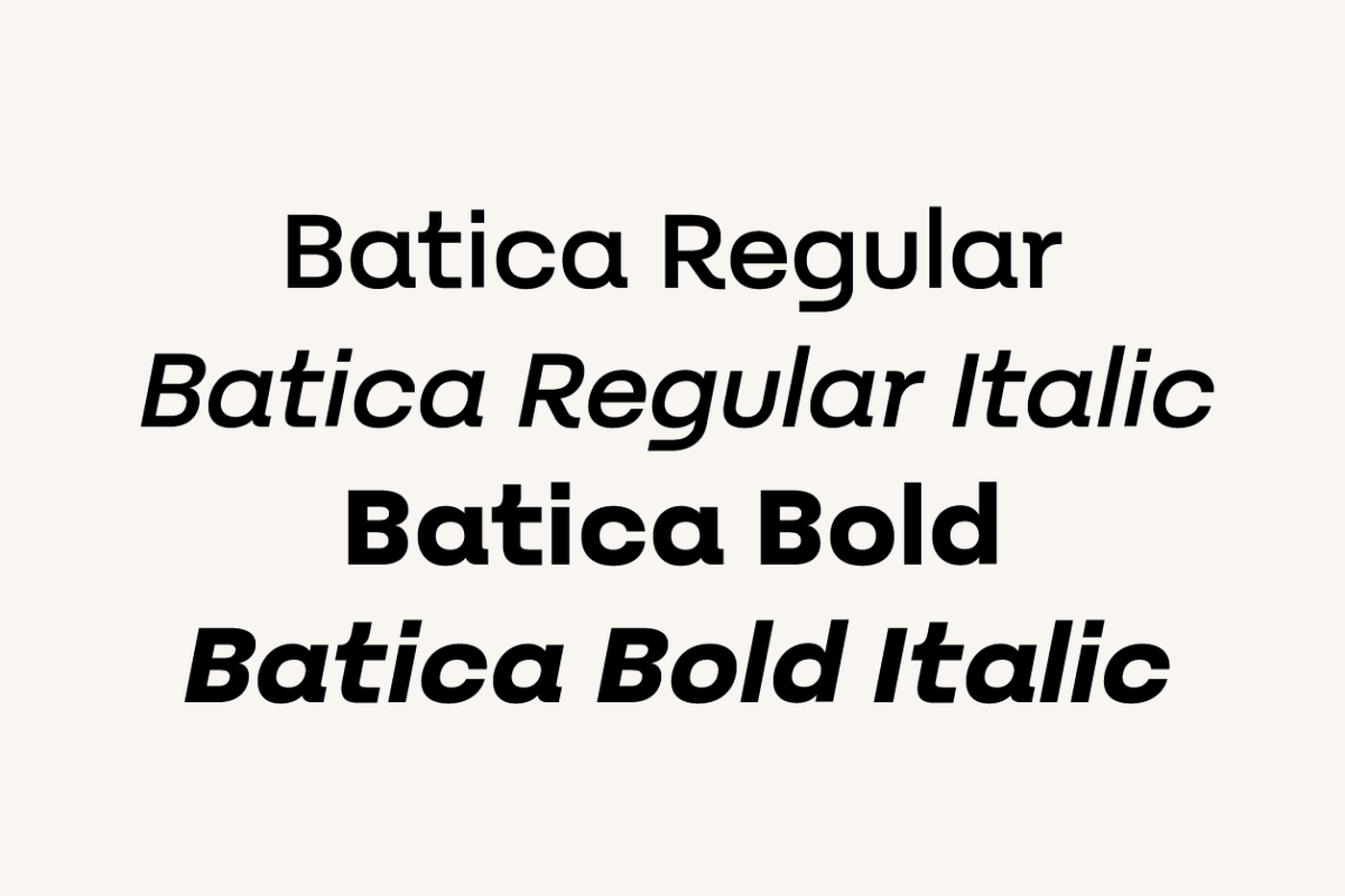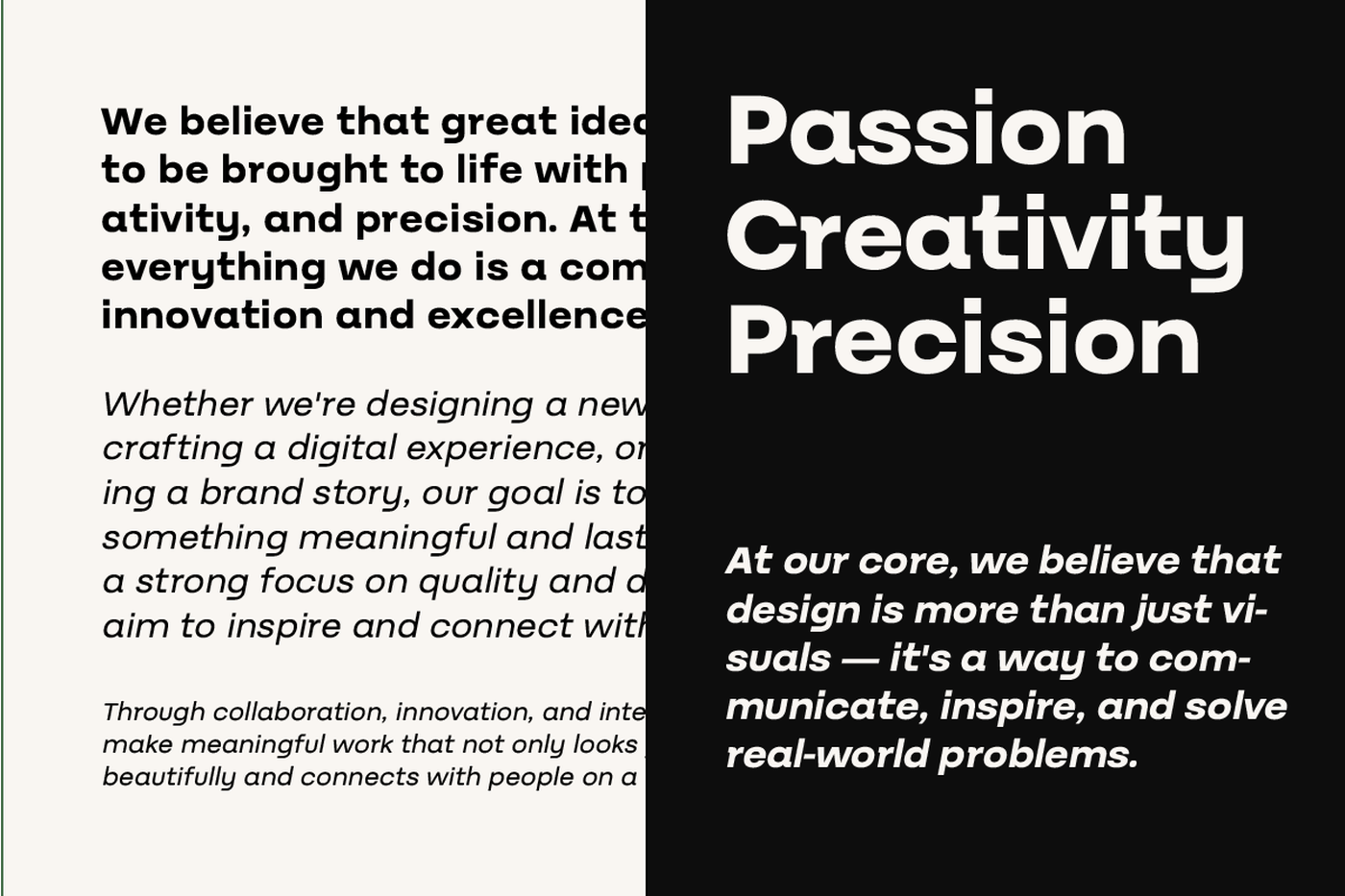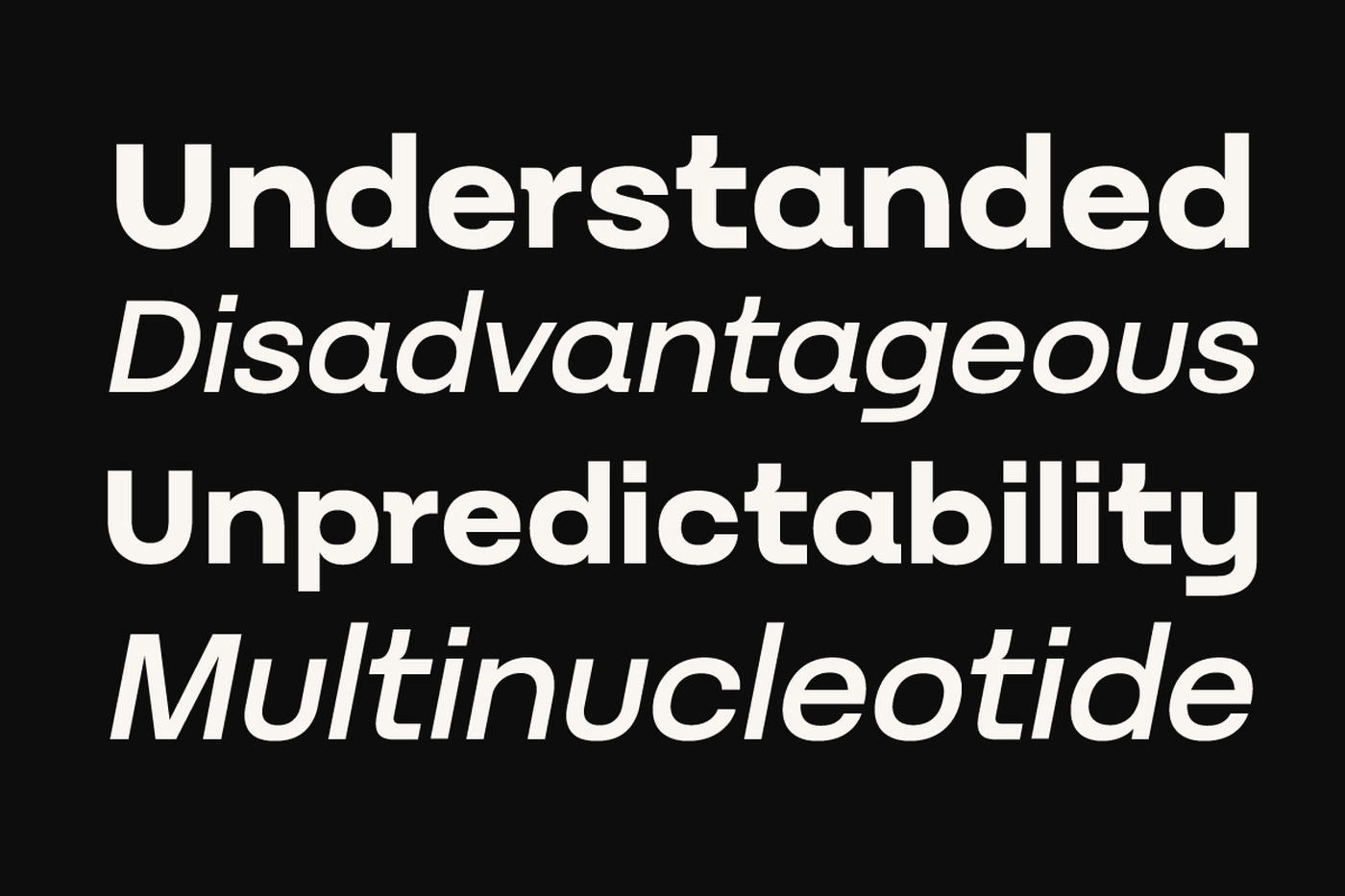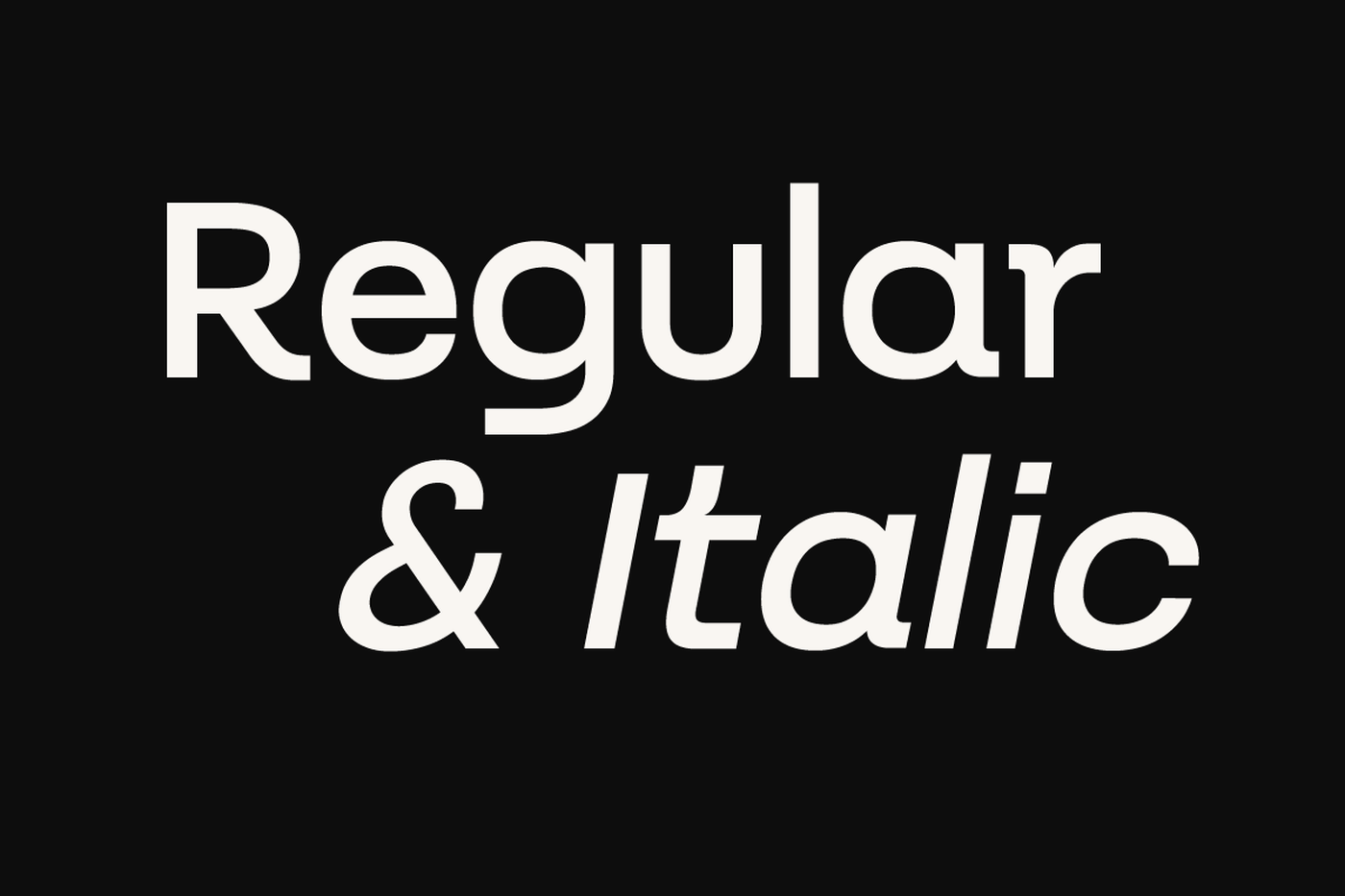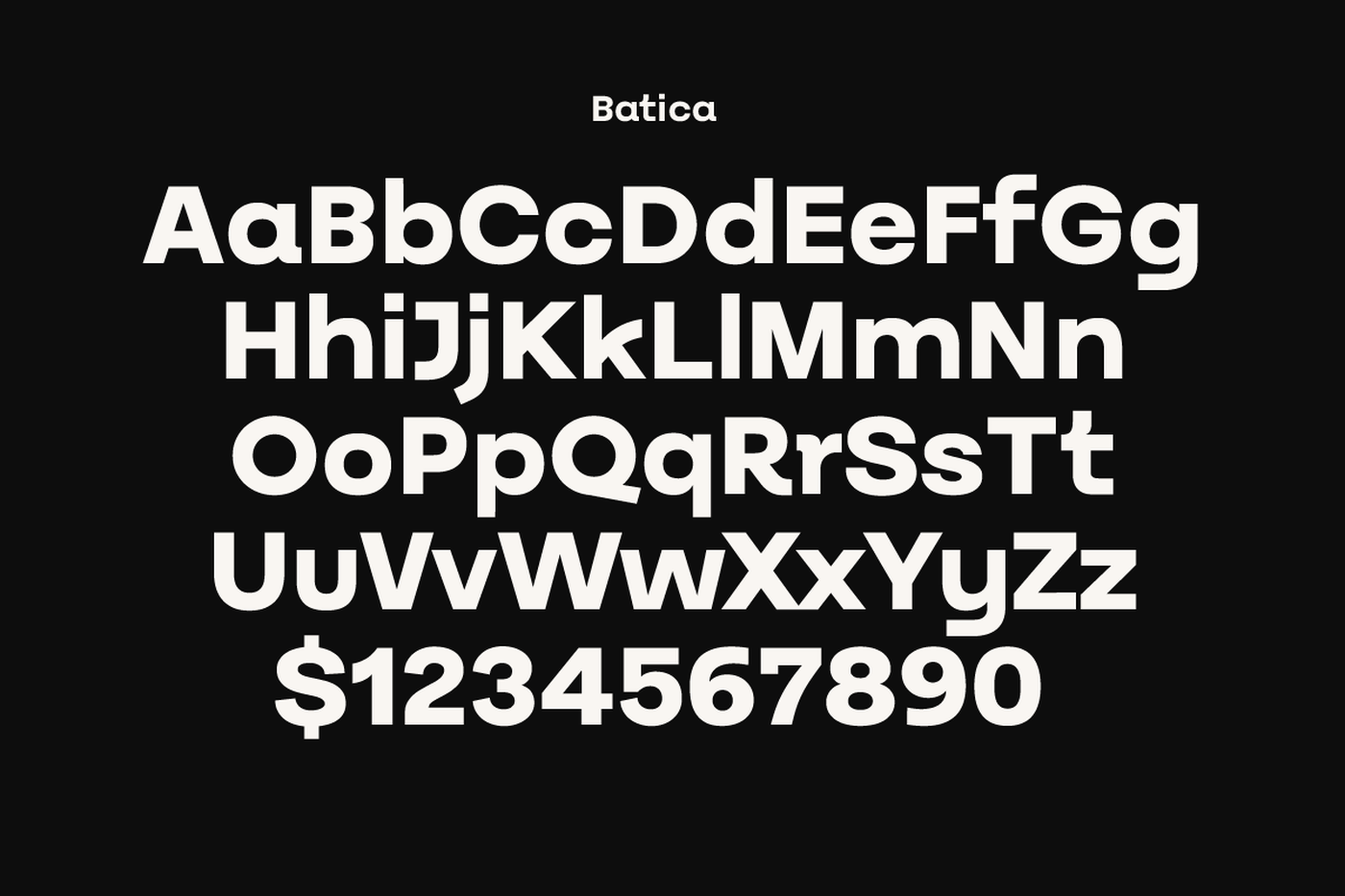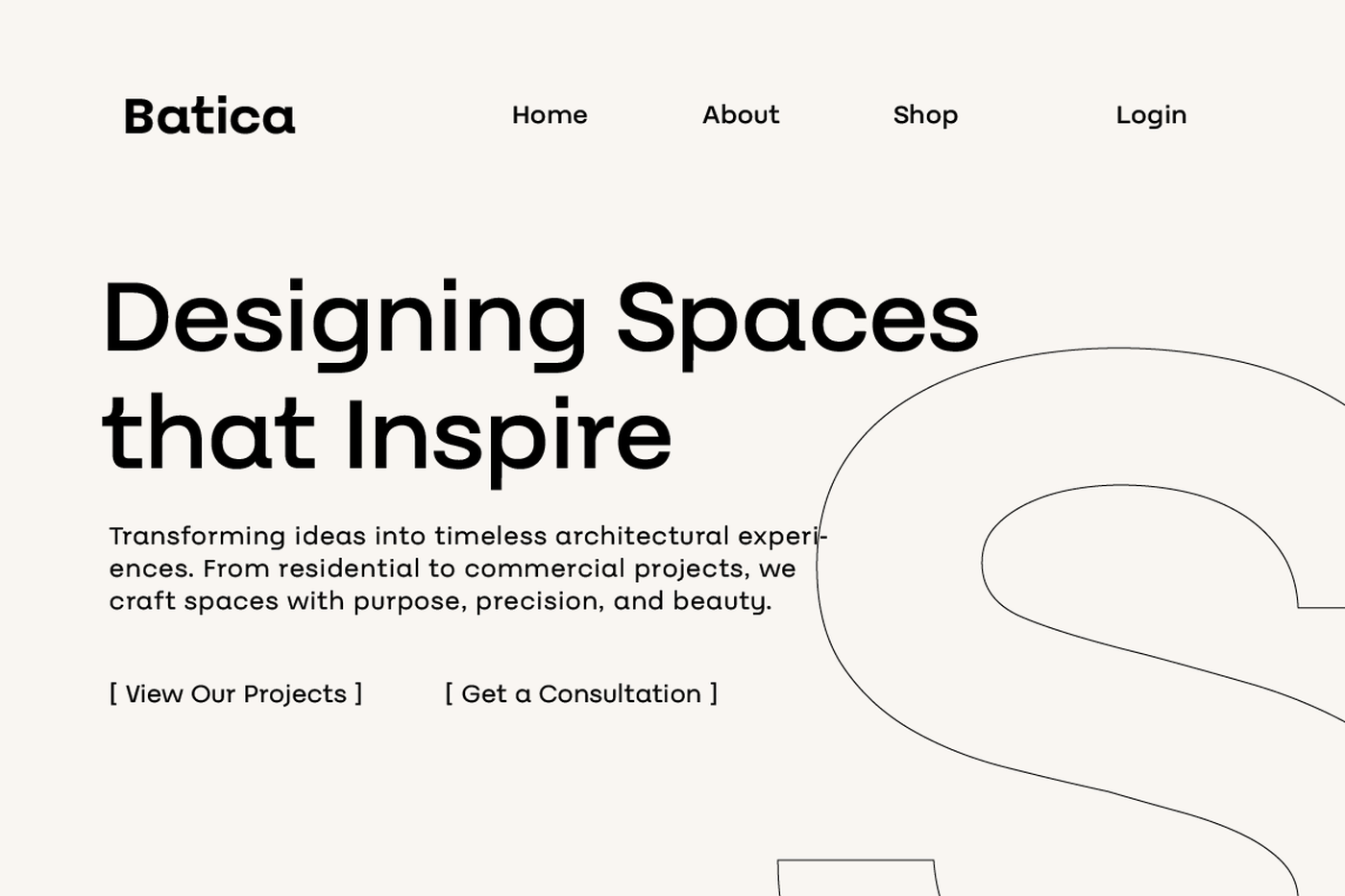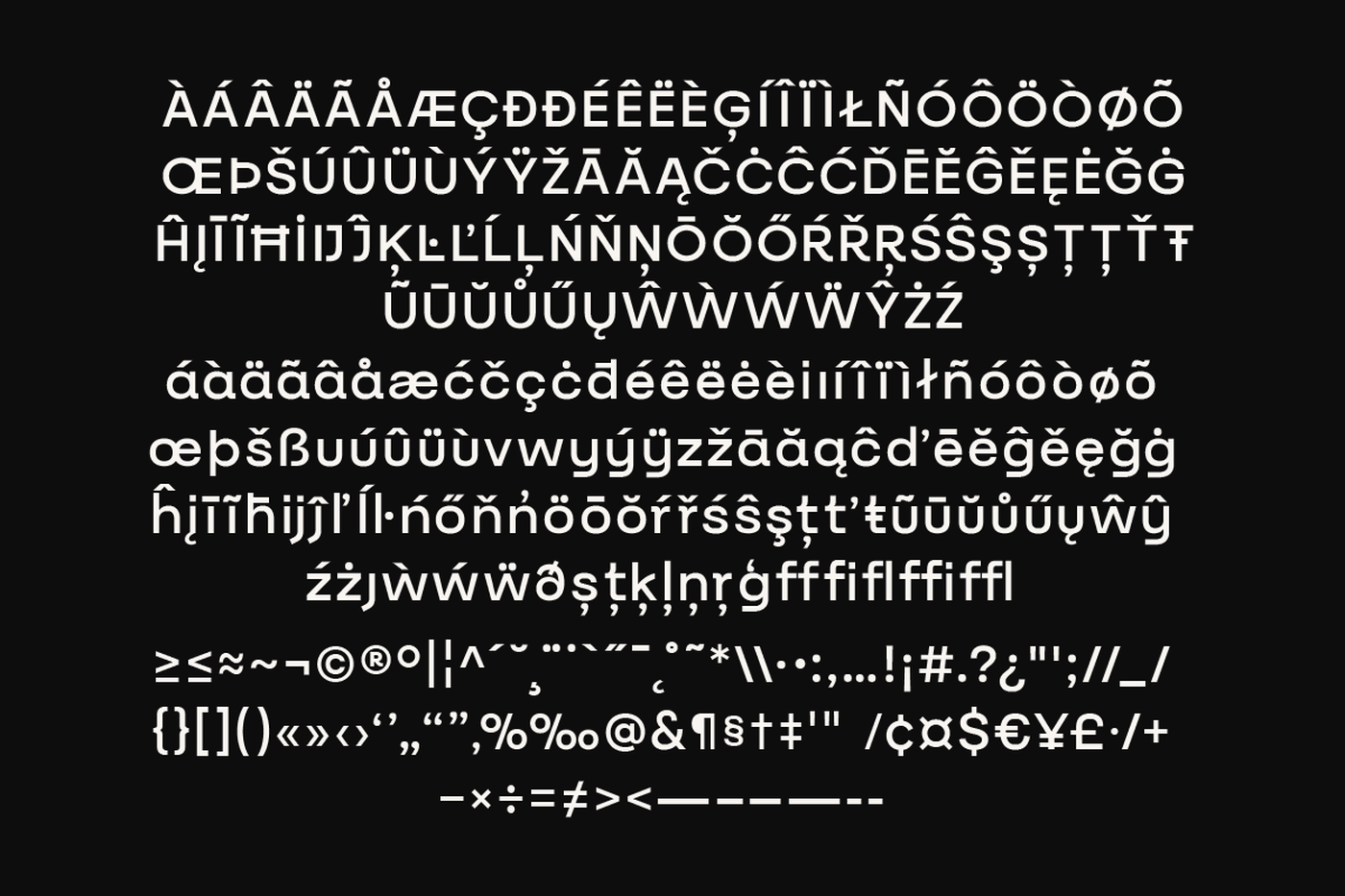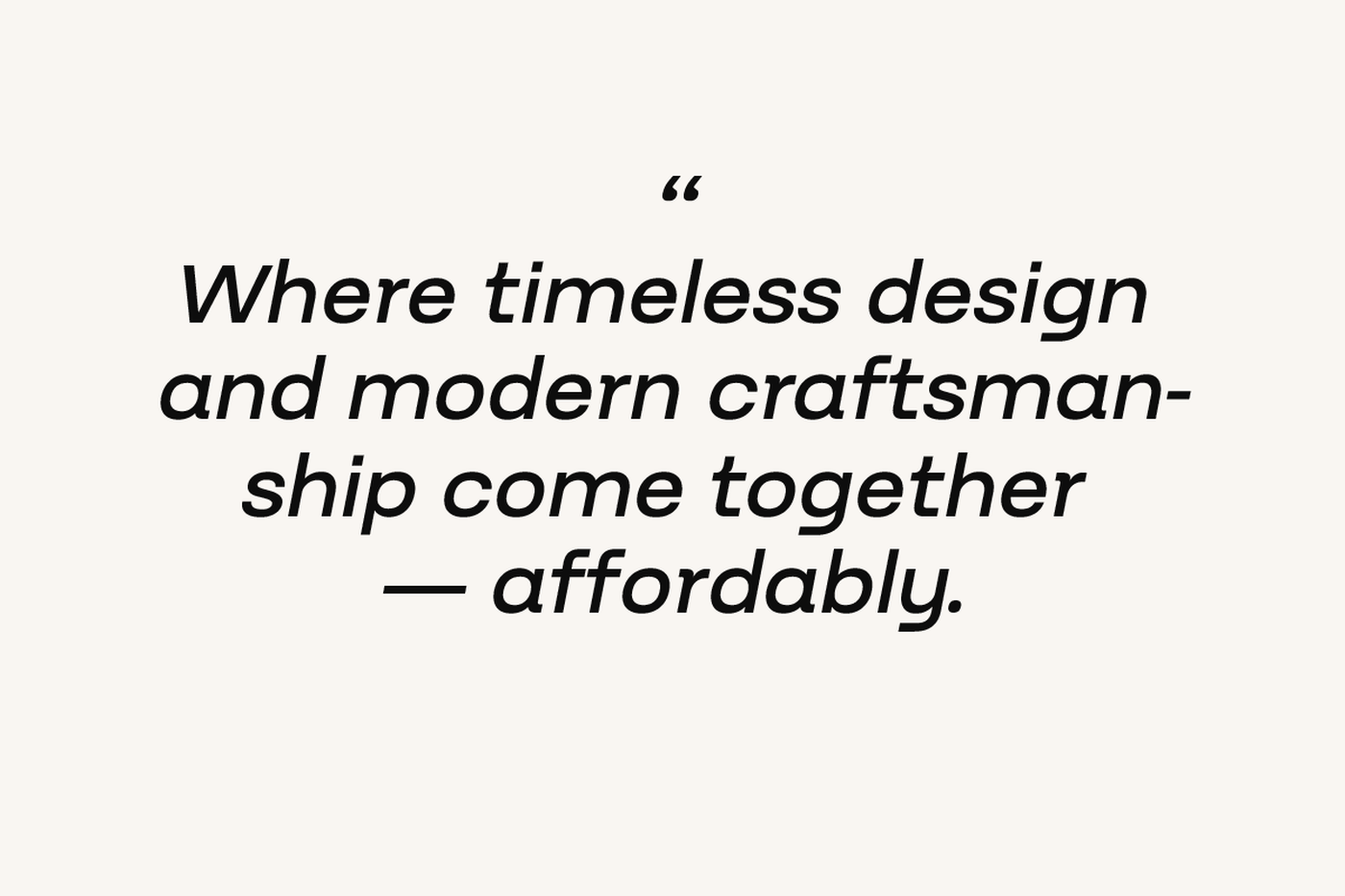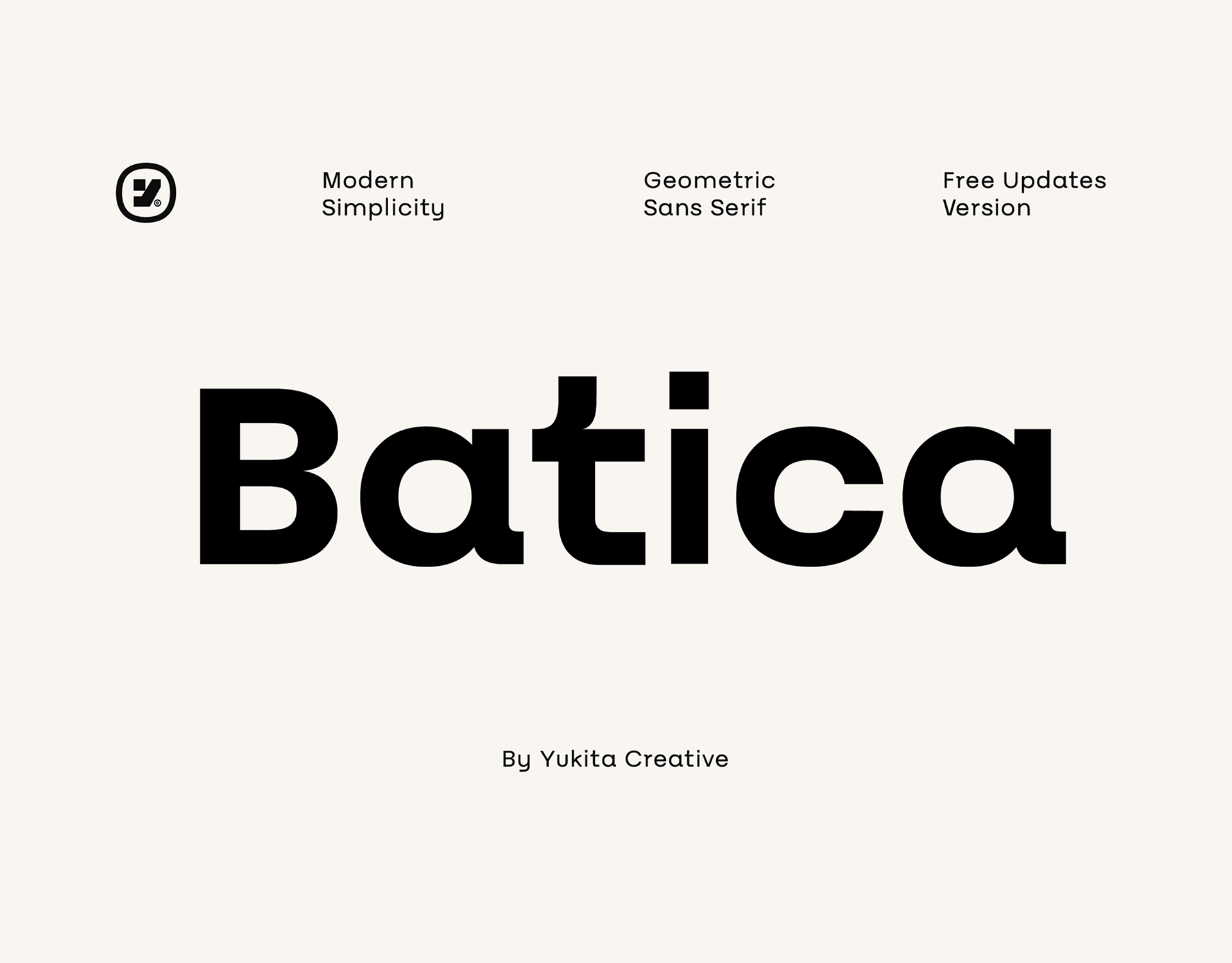
Batica - Modern Sans Serif Font Family
Batica is a clean and modern geometric font family, designed for designers who value simplicity and clarity. Featuring 4 essential styles – Regular, Italic, Bold, and Bold Italic – Batica offers flexibility for a wide range of design projects, from branding and logo design to web and editorial layouts.
With its minimalist construction and balanced proportions, Batica brings a professional and contemporary feel to any creative work. Each character is crafted with precision, making it perfect for modern typography needs in both print and digital formats.